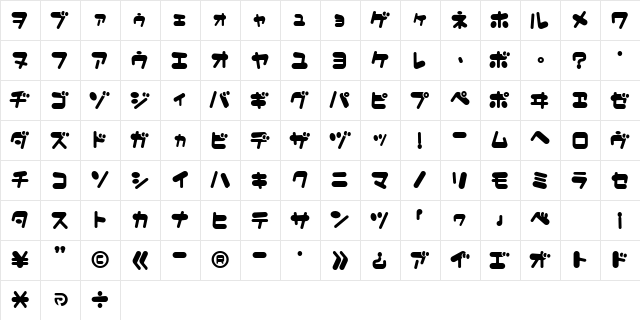
MerumoKt Regular
Design Context for MerumoKt Typeface
MerumoKt takes a measured approach to typography — its balanced proportions and neutral character make it a reliable workhorse for both digital and print work.